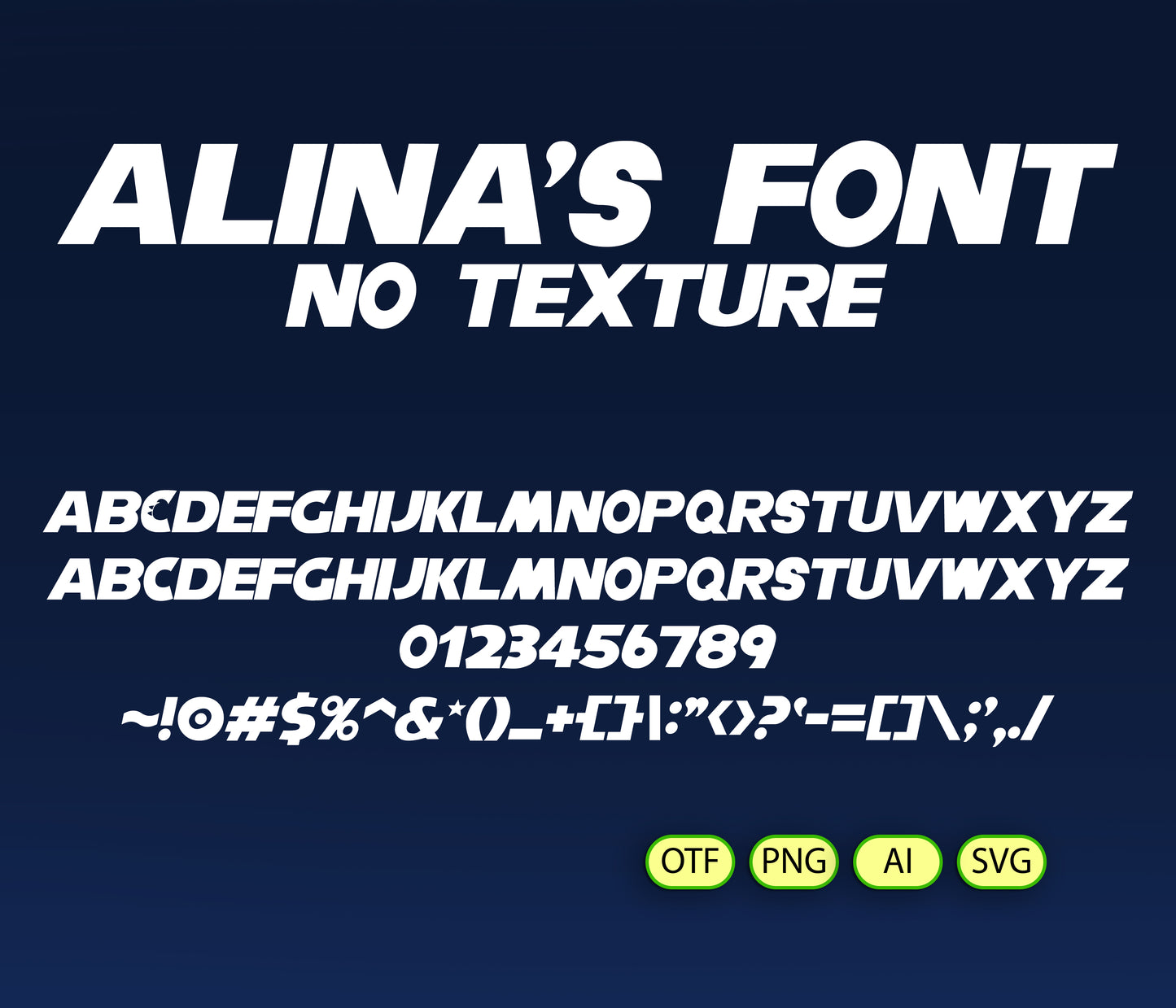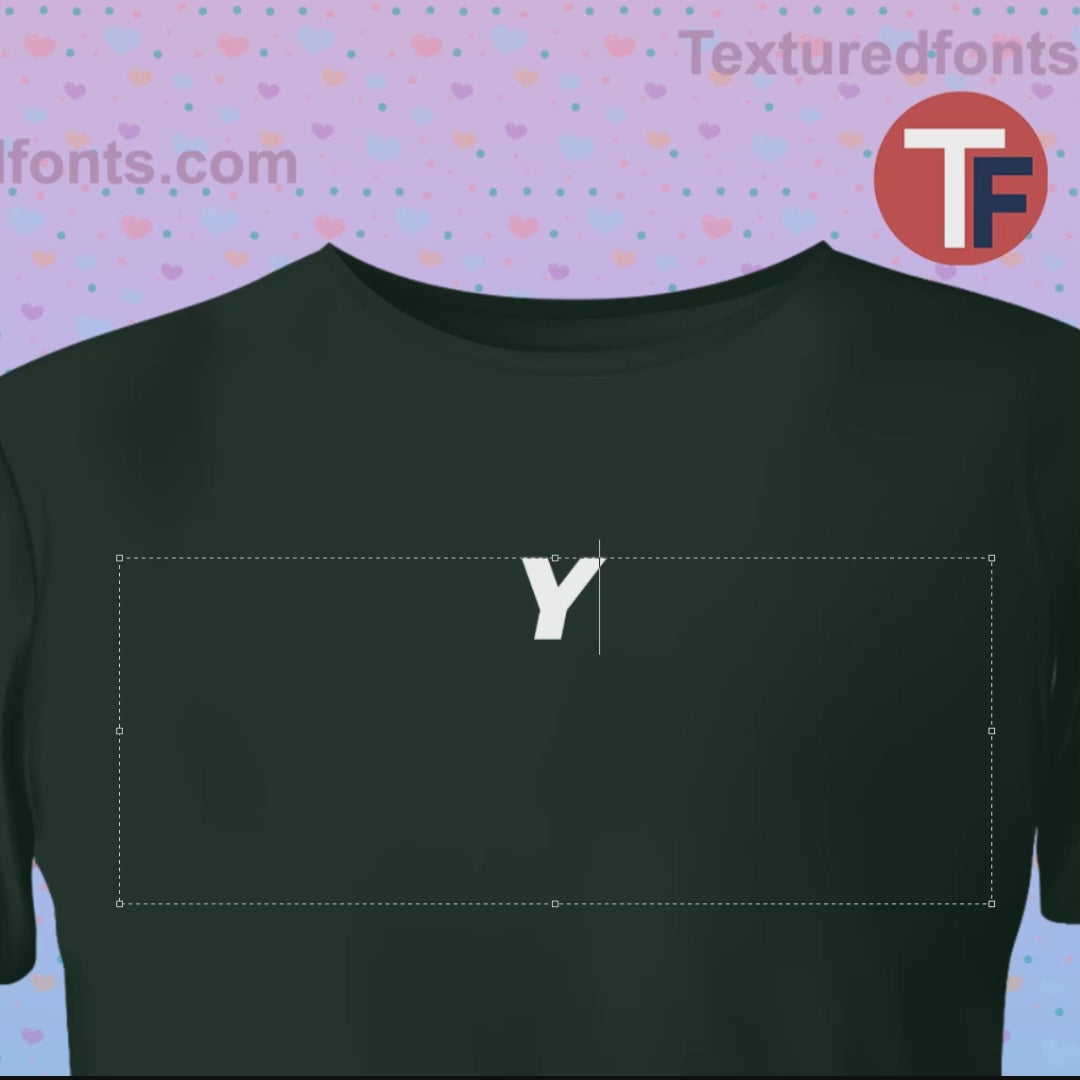
Guardian Fighter Font
Power Up Your Designs with the Guardian Fighter Font
Tap into the bold and adventurous spirit of a fierce, determined hero with our Guardian Fighter font. Perfect for fans of the fiery echidna-like character from an iconic video game series, this font captures the unique blend of strength and determination that defines this beloved character. Whether you're creating gaming content, fan merchandise, or personal projects, our font ensures your designs resonate with the energy and attitude of one of the most iconic characters in the gaming universe.
Featuring strong, angular lines reminiscent of the character's robust and rugged personality, this font includes a complete character set suitable for a variety of applications:
1. Gaming Events: Create impactful promotions for tournaments or fan meet-ups.
2. Digital Content: Enhance your online presence with eye-catching graphics.
3. Merchandise: Design standout apparel, posters, and more.
4. Personalized Projects: Add a personal touch to DIY crafts or room decor.
With our Guardian Fighter font, embrace the strength and adventure of a heroic character in every creation, making your projects as dynamic and enduring as the character himself.